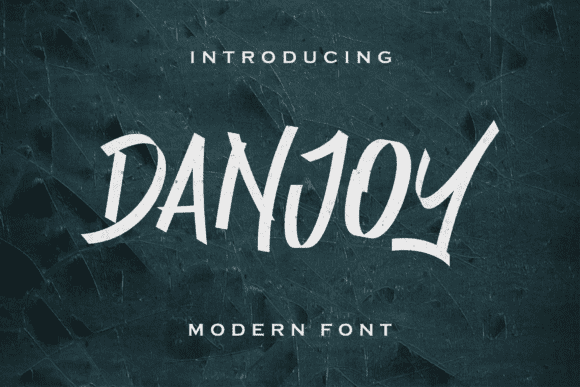
Danjoy Brush Font
Danjoy Brush Font is a cool and brushed display font. It was particularly crafted for those who need a beautiful and refreshing look to their designs.